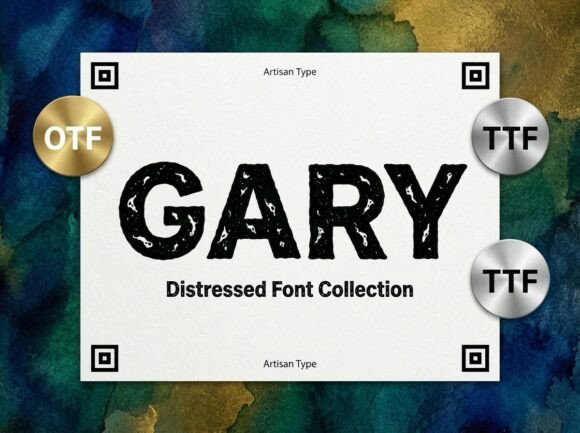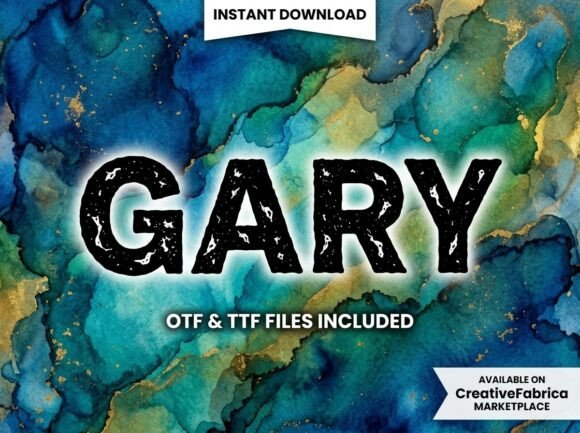
The Gary Font: A Stunning Decorative Display Font to Elevate Your Designs
Have you ever been working on a project, pouring your heart and soul into it, and then suddenly, you’re stuck on one thing: finding the perfect font? I remember a particularly frustrating experience when I was designing a logo for a client. I wanted something that would make their brand stand out, but every font I tried seemed either too bland or too over-the-top. That’s when I discovered the Gary Font, a game-changing decorative display font that has since become a staple in my design toolkit.
An Honest Review: What I Love and What to Consider
- ✅ Unique artistic elements: The Gary Font boasts a distinctive style that’s sure to turn heads.
- ✅ Strong visual personality: This font isn’t afraid to make a statement, making it perfect for bold headlines and eye-catching logos.
- ✅ Versatility: Whether you’re designing a logo, crafting a headline, or creating packaging, the Gary Font adapts seamlessly.
- ✅ Professional finish: Despite its bold nature, the font maintains a polished, high-end look.
Considerations ⚠️
- 🤔 All-caps only: The Gary Font is specifically designed for uppercase letters, which might limit its use for body text or other applications requiring lowercase letters.
- 🤔 Limited use in detailed designs: Due to its decorative nature, the font might not be the best choice for very detailed or intricate designs.
One of the exciting aspects of the Gary Font is its support for OpenType features. While it’s primarily an all-caps display font, exploring the glyph panel in compatible software can reveal additional design elements and stylistic alternates. These can be used to add variety to your text and make your designs even more unique.
The Gary Font was inspired by the need for a distinctive, attention-grabbing typeface that doesn’t compromise on professionalism. Its designer aimed to create a font that would serve as a statement piece in any design project, from logos and headlines to packaging and advertising. With its unique artistic elements and strong visual personality, the Gary Font achieves just that.
| Is the Gary Font suitable for body text? | No, the Gary Font is an all-caps display font designed for headlines, logos, and decorative elements. It’s not intended for body text. |
| Does the Gary Font include stylistic alternates? | While primarily an all-caps font, the Gary Font supports OpenType features. Exploring the glyph panel in compatible software may reveal additional design elements. |
| Is the Gary Font available in different weights? | The Gary Font is a single-weight display font. Its bold nature makes it perfect for making statements, but it may not offer the range needed for detailed typographic work. |